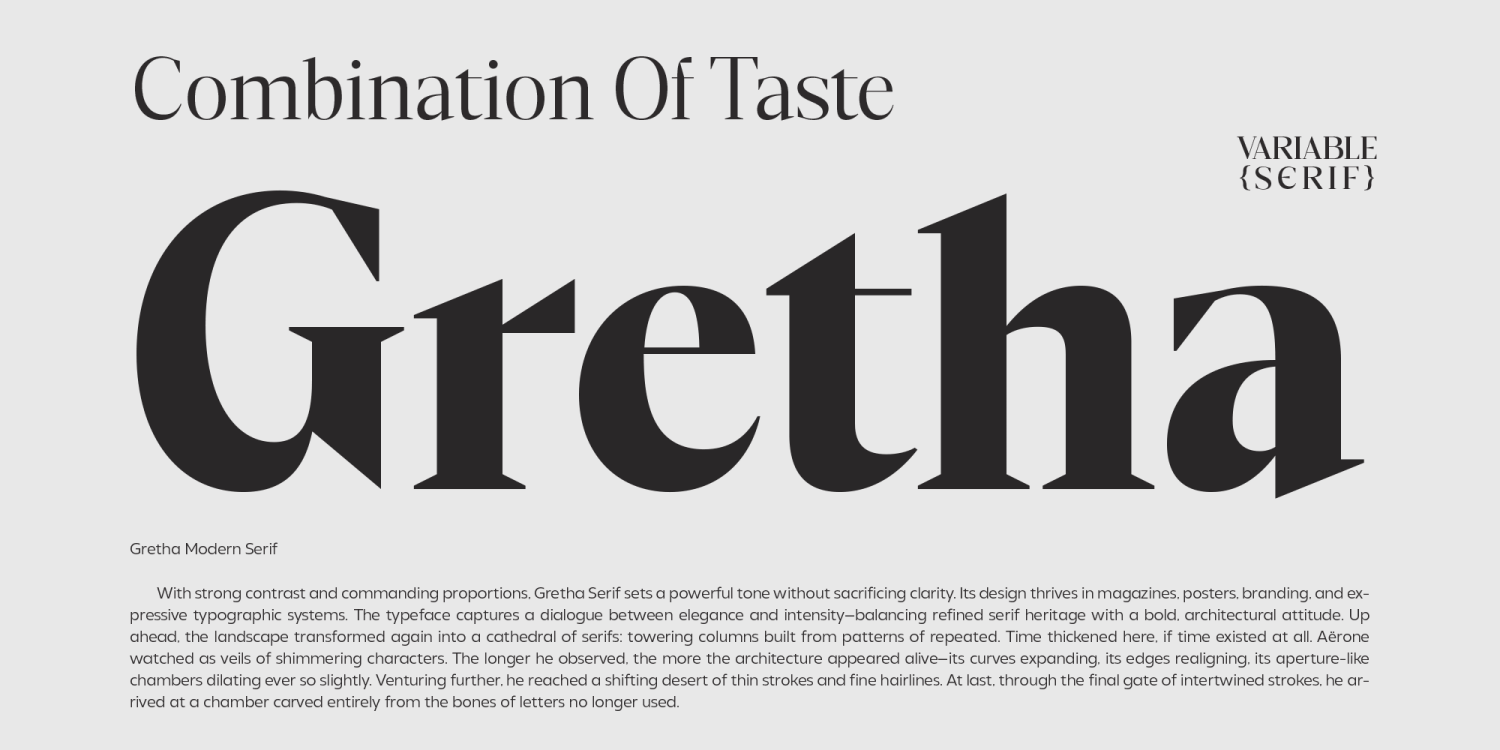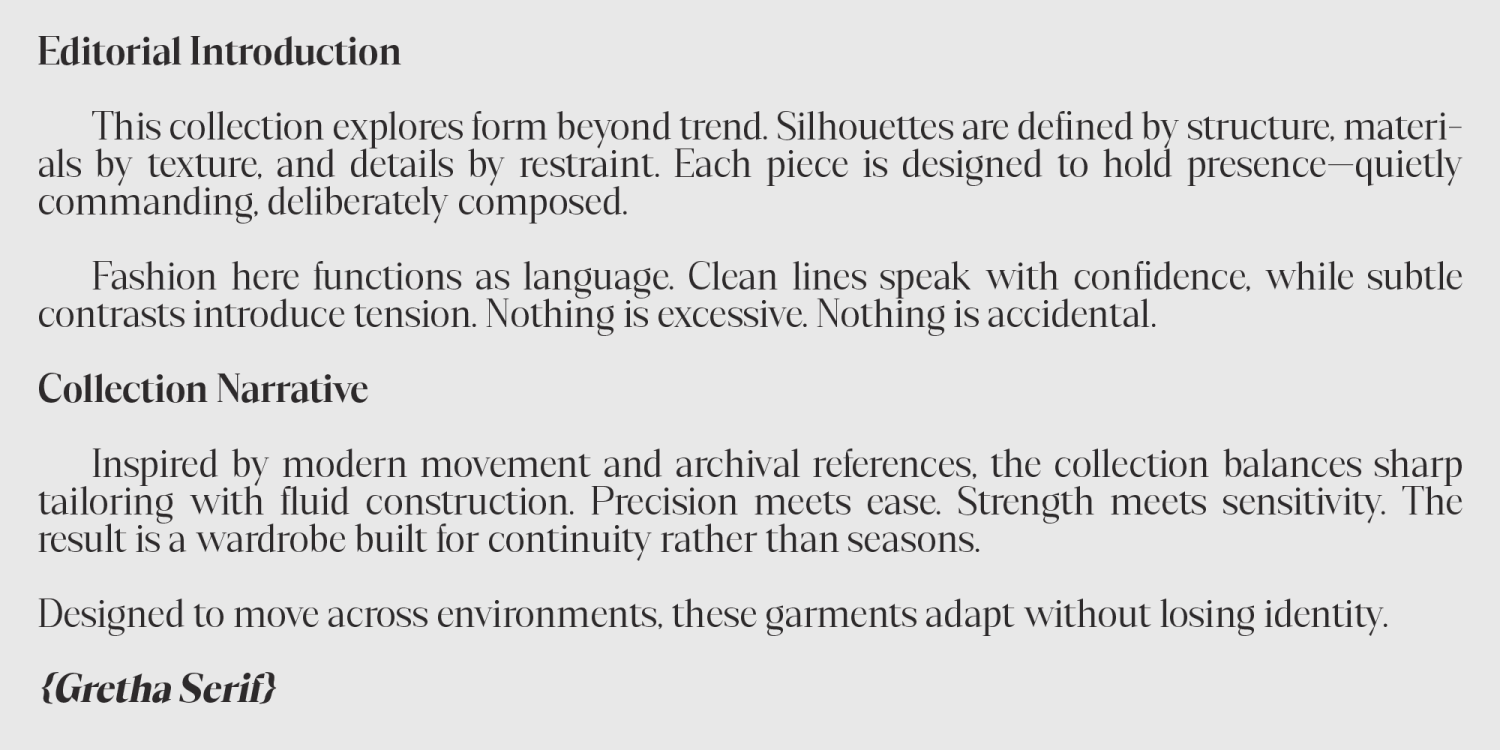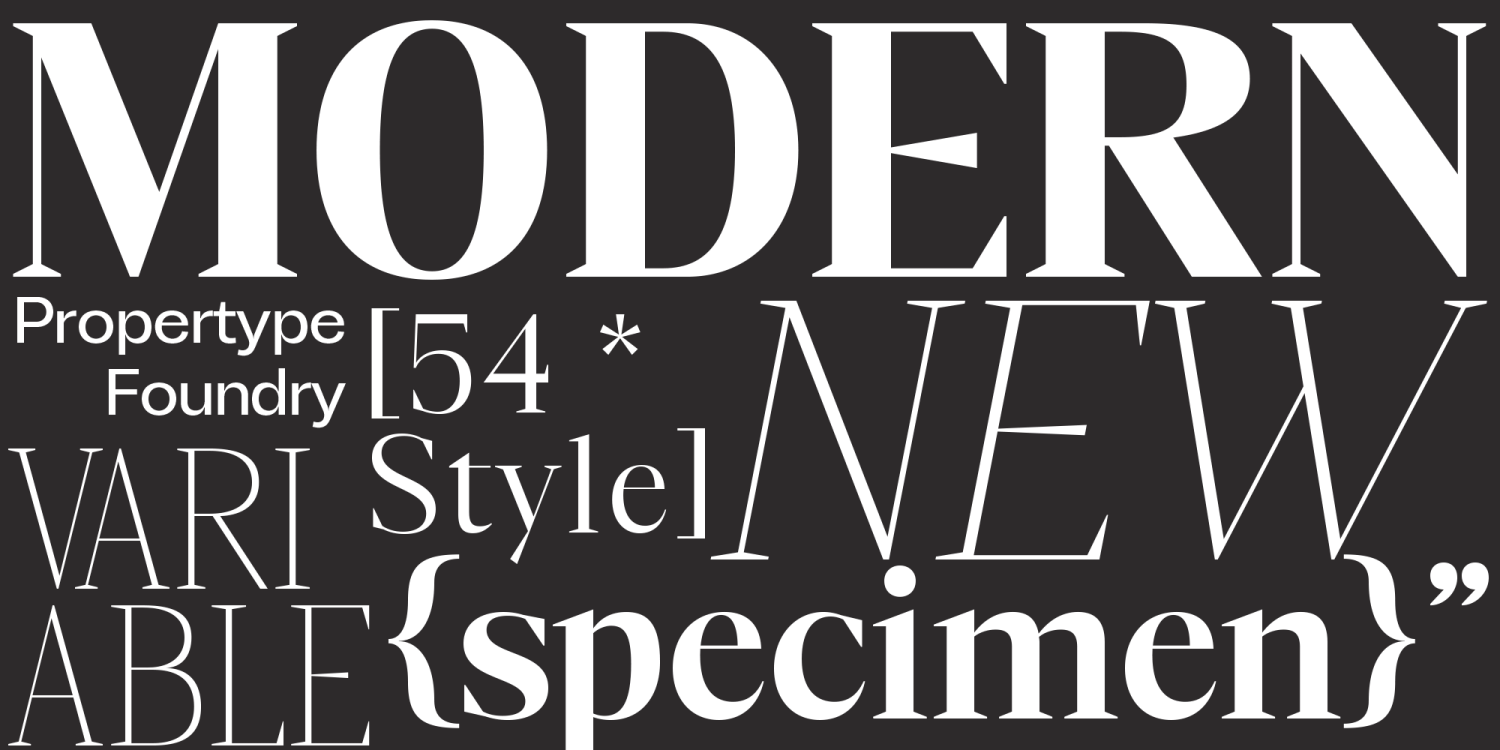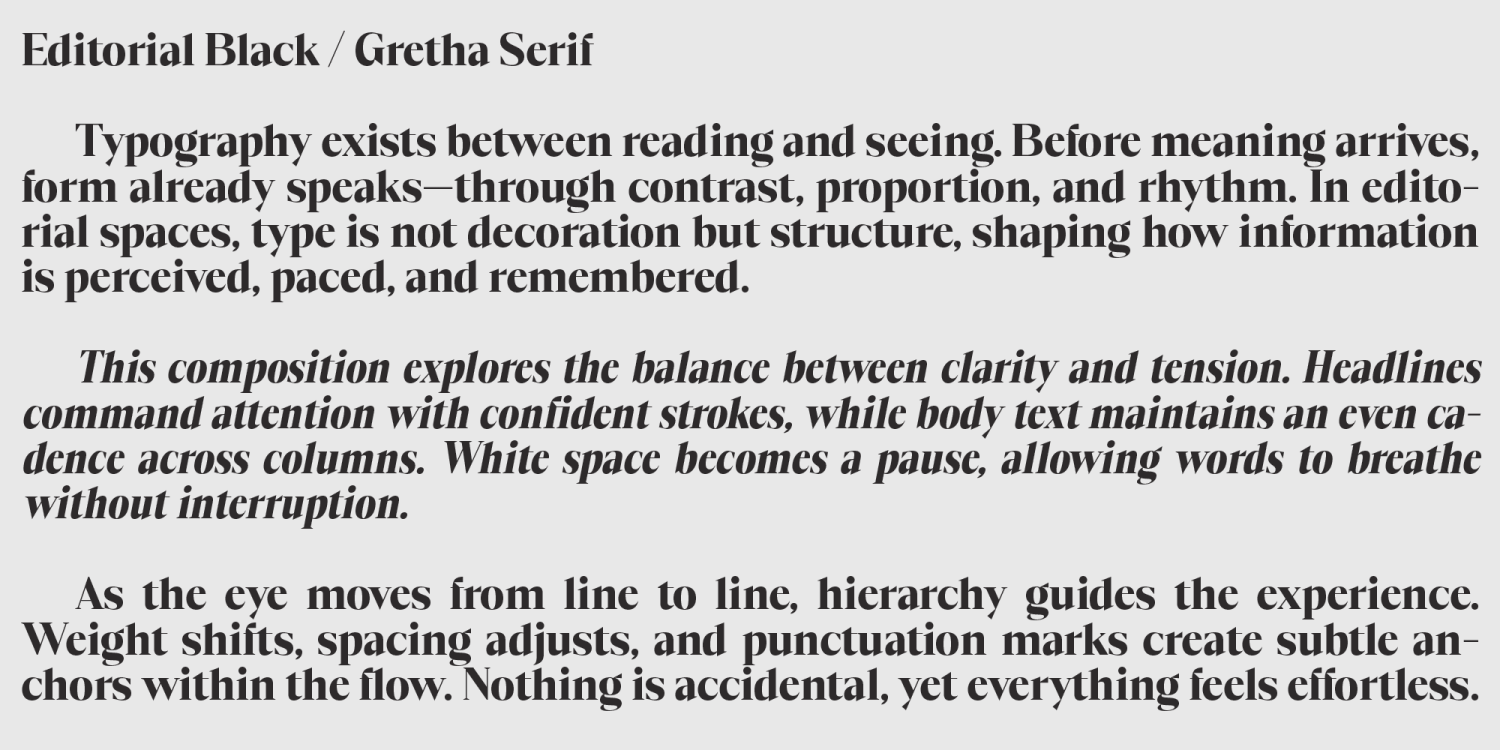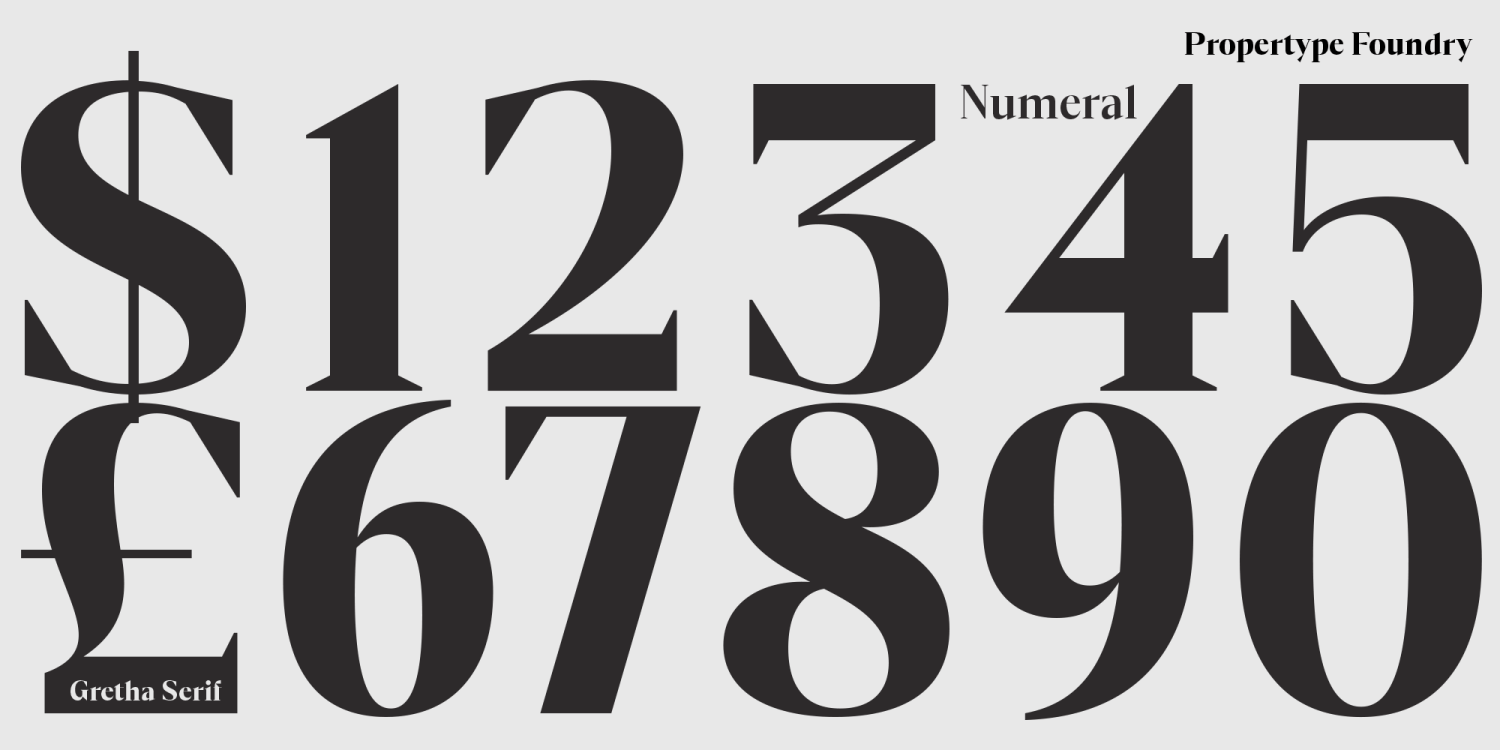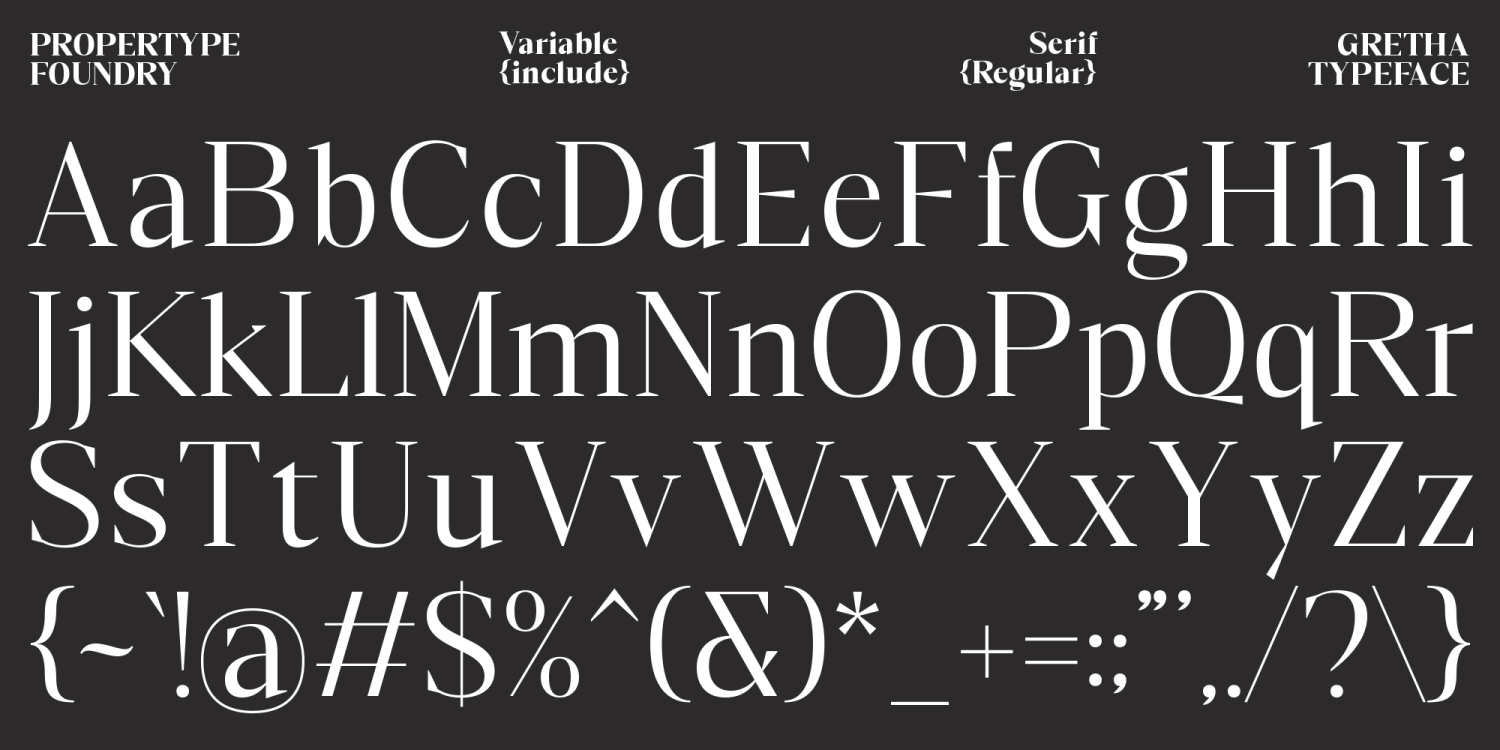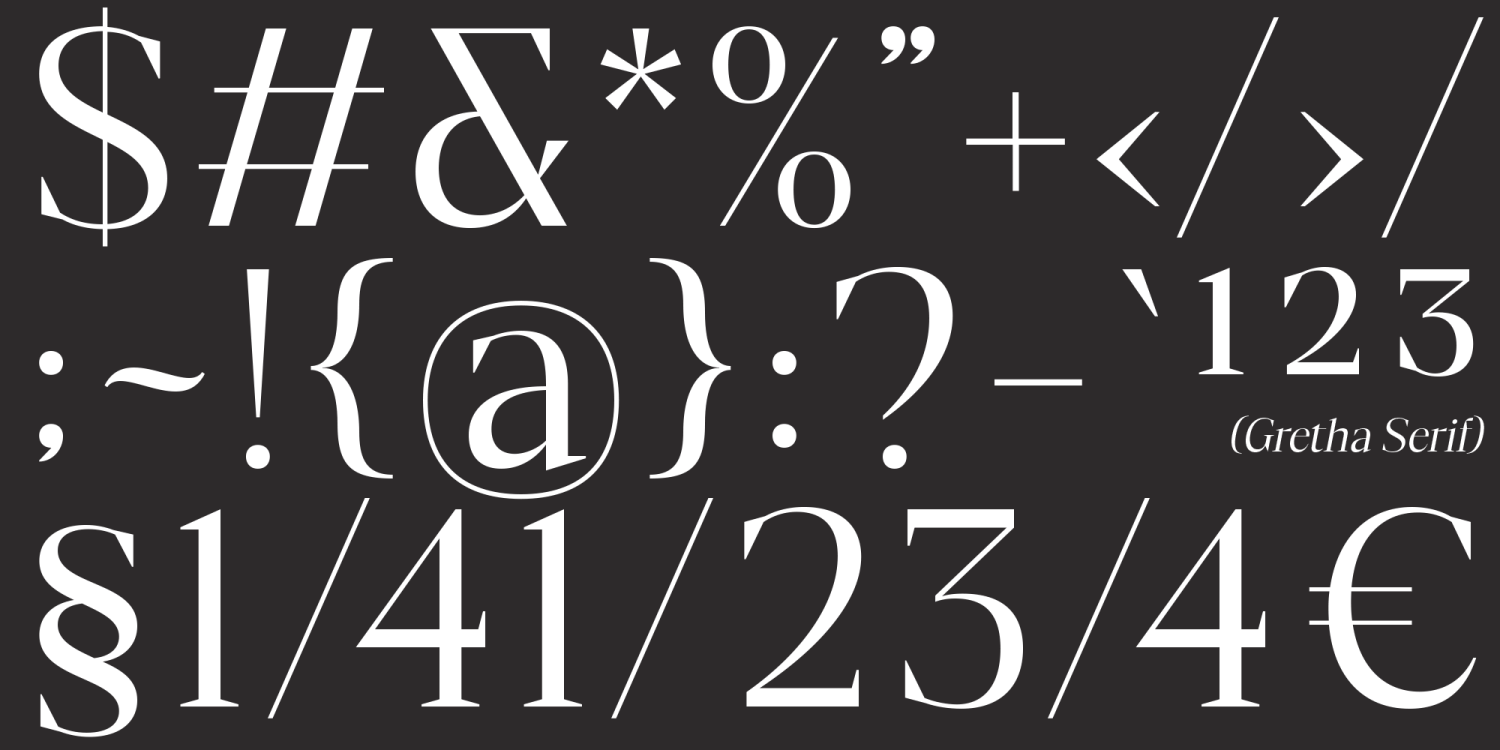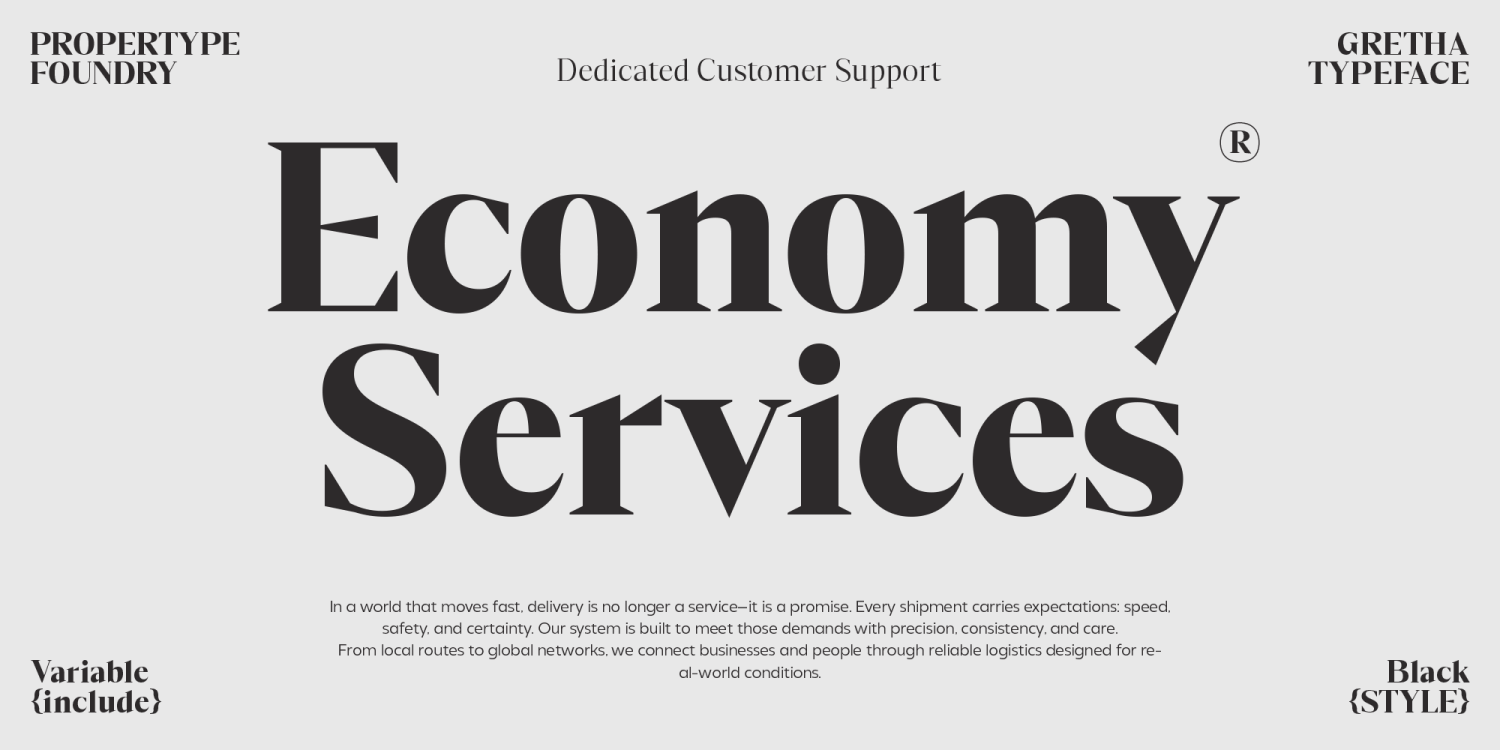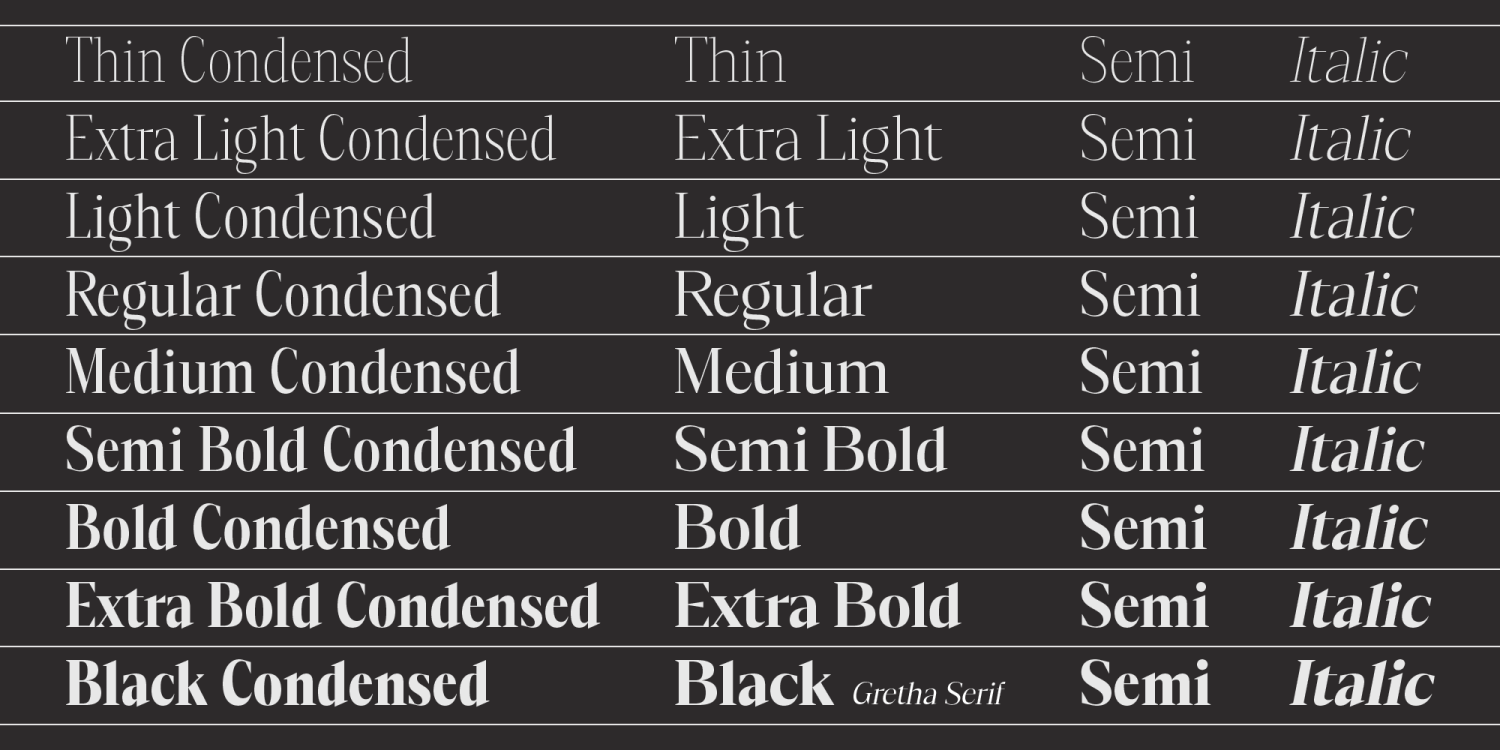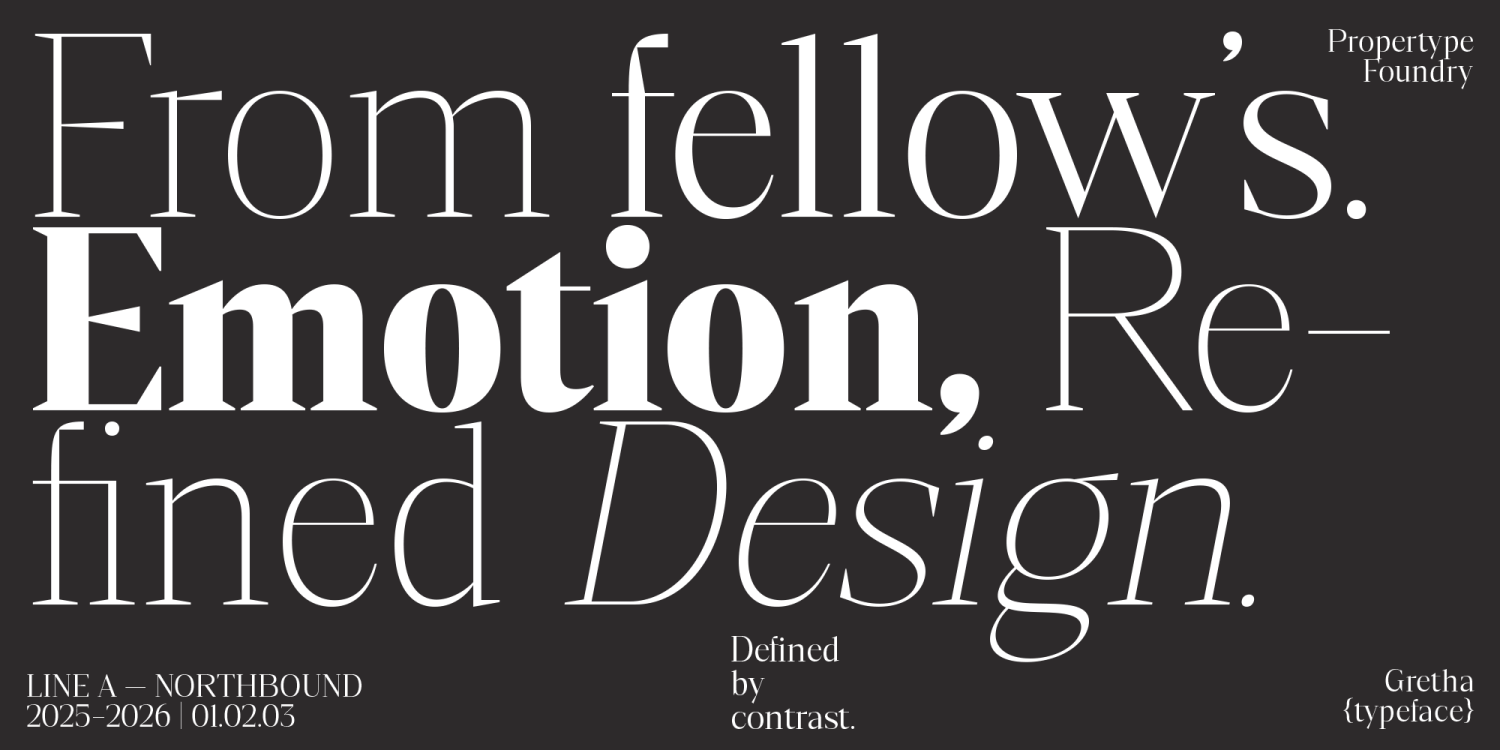
GrethaSerif
Buy NowGrethaSerif is an elegant and warm serif typeface with a classic feel. This typeface is designed to enhance credibility.
It includes 54 fonts, both upright and italic, ranging from light to black. It also includes one variable font. OpenType features allow for the implementation of typography such as ligatures and support for multiple languages.
A good choice for branding, magazines, posters, advertisements, print, packaging, headlines, web design, and more.